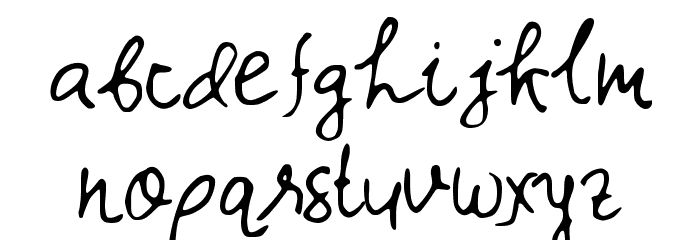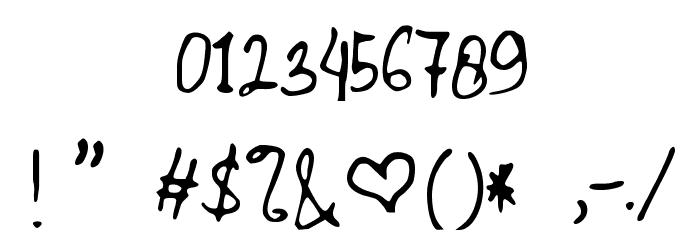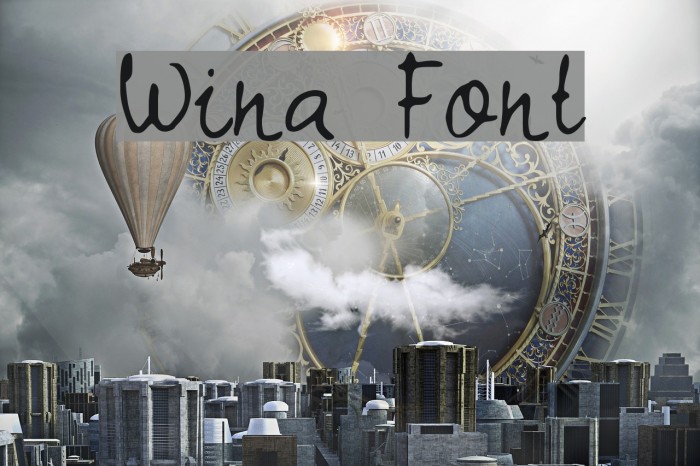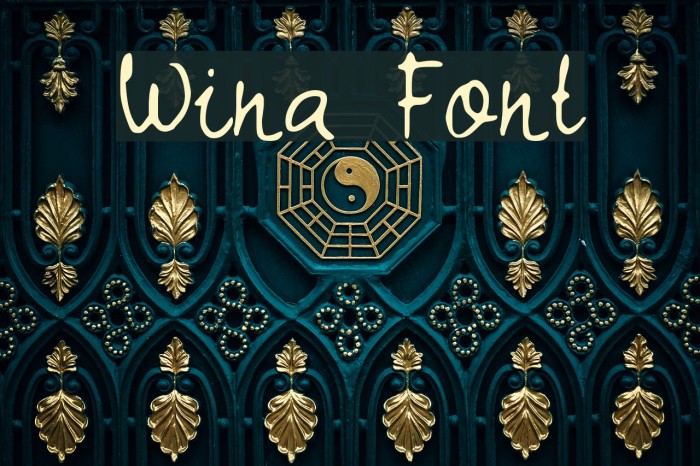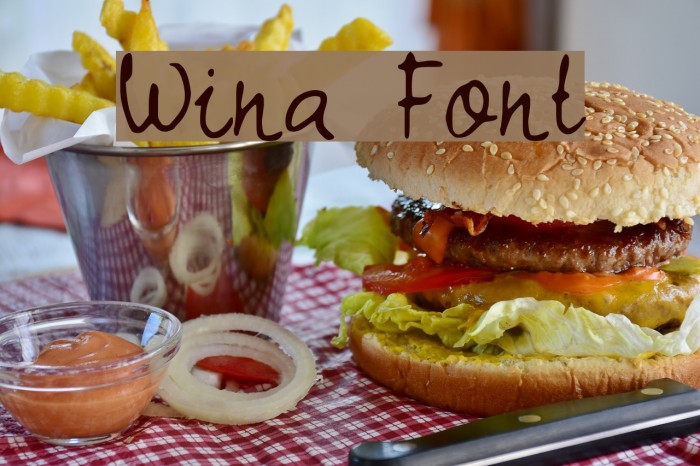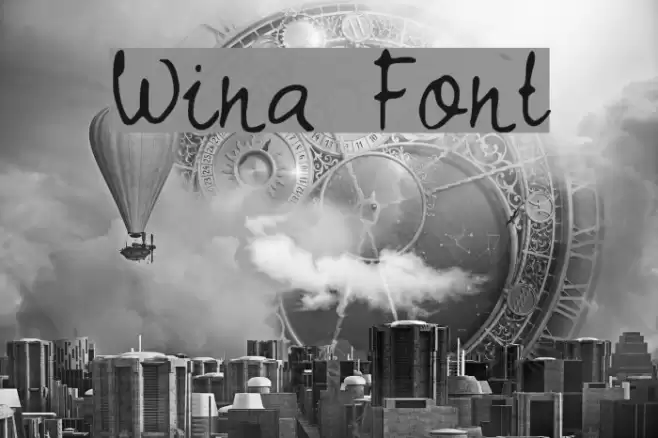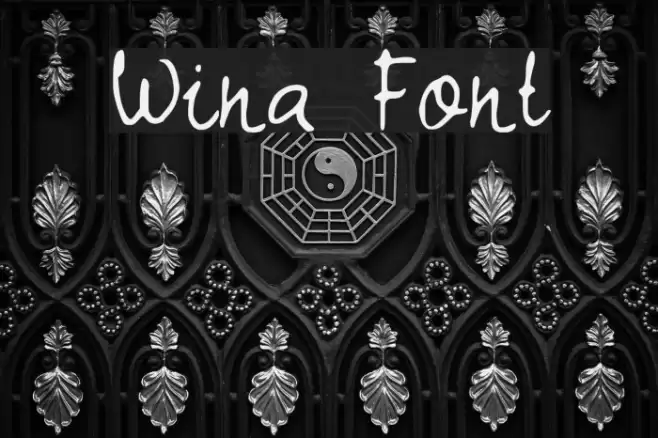
Wina Font
This font features a playful and casual handwritten style, characterized by its irregular strokes and organic flow. The letters are slightly slanted, giving a dynamic and lively appearance. The uppercase letters maintain a consistent height, while the lowercase letters vary in size, adding to the informal feel. The numbers and special characters follow the same whimsical style, making the font suitable for creative and informal projects. The overall look is approachable and friendly, with a touch of spontaneity.
A playful, casual handwritten font with irregular strokes and a dynamic flow.
- Proposed Projects: Ideal for greeting cards, children's books, casual invitations, and playful branding.
- Overall Style: Casual, Playful
- Use Case: Logos, Invitations, Greeting Cards